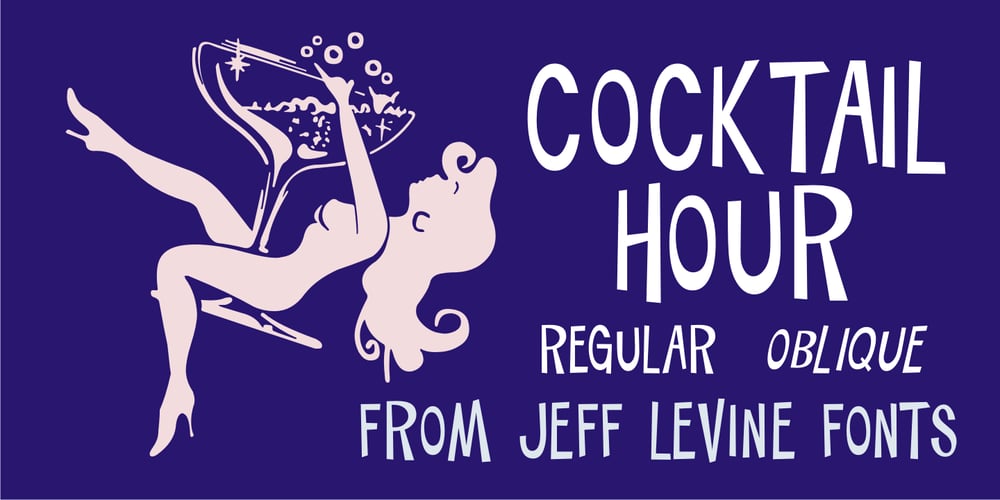
Cocktail Hour JNL Font Family was designed by Jeff Levine and published by Jeff Levine. Cocktail Hour JNL contains 2 styles and family package options. The opening title for the 1962 Blake Edwards film “Days of Wine and Roses” [starring Jack Lemmon and Lee Remick] was the inspiration for Cocktail Hour JNL. Adding to the playfulness of this font, the characters float above the baseline. Cocktail Hour JNL is available in both regular and oblique versions.